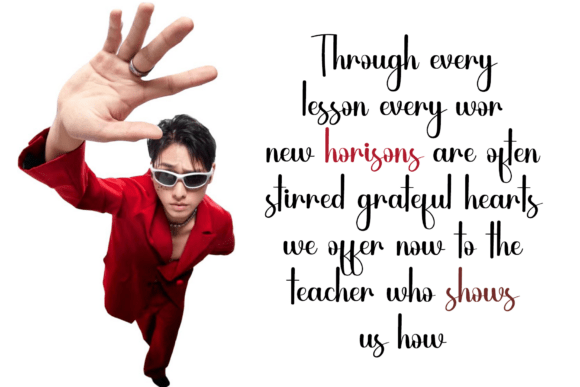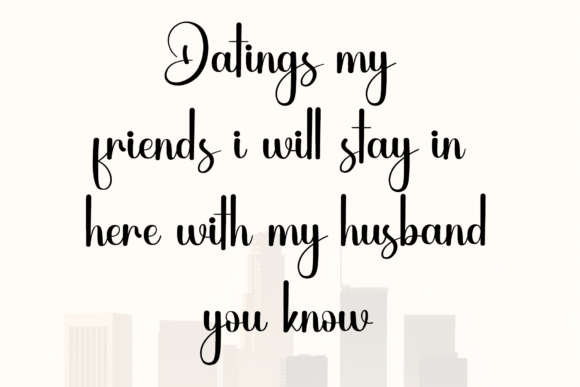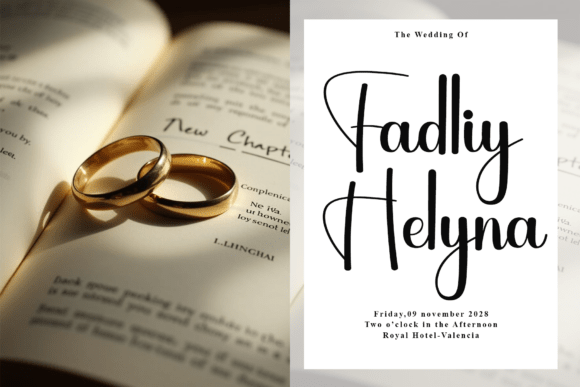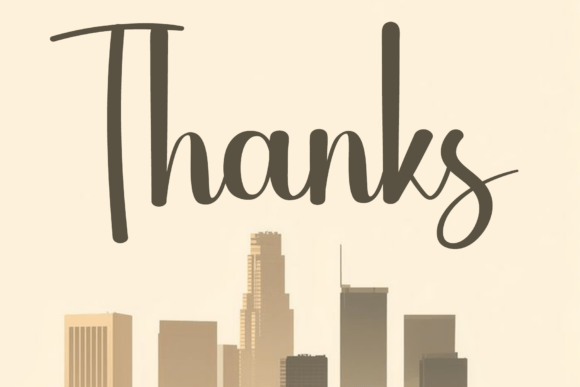
The Perfect Script for a Special Day
Have you ever stared at a blank canvas, waiting for inspiration to strike? For designers, moments like these can be both thrilling and daunting. The blank page can be a daunting sight, but sometimes all it takes is the right font to spark creativity. That’s exactly what happens when you discover the Happys Birthdays Font – a sophisticated script that combines the elegance of calligraphy with the warmth of handcrafted artistry.
This beautiful font is a go-to choice for designers who want to add a touch of sophistication to their projects. From artisanal food branding to upscale lifestyle marketing, Happys Birthdays Font is the perfect tool for making your designs stand out. Its unique, looping ascenders create a sense of customized, artisanal artistry that’s sure to captivate your audience.
Happys Birthdays Font Key Features
- Font Style: Handwritten Script Font
- Unique Characteristics: Includes 12 birthday-themed swashes and ornaments, making it perfect for creating personalized birthday cards and invitations
Happys Birthdays Font Review
First off, I’d like to say that Happys Birthdays Font is a unique and playful choice for any birthday-themed design project ✨. The font’s rounded edges and colorful feel instantly evoke a sense of celebration and joy. I appreciate how the font’s design allows for a lot of customization options, making it easy to match with various color schemes and design styles.
- Customizable color options: The font’s vibrant colors can be easily adjusted to fit any design aesthetic.
- Playful, celebratory feel: Happys Birthdays Font is perfect for adding a touch of whimsy to birthday-themed projects.
However, I do have some reservations about the font’s limitations ⚠️. For one, the font’s design may not be suitable for more formal or professional projects. Additionally, the font’s rounded edges can sometimes make it difficult to read, particularly in smaller text sizes.
- May not be suitable for formal projects: Happys Birthdays Font’s playful design may not be fitting for more serious or professional projects.
- Readability issues: The font’s rounded edges can make it difficult to read in smaller text sizes.
Overall, I think Happys Birthdays Font is a great choice for birthday-themed projects, but it may not be the best fit for every design project. With a little creativity and careful design planning, however, this font can add a lot of personality and whimsy to your work.
Tips for Getting the Most Out of Happys Birthdays Font
Use the font to create custom invitations, birthday cards, and party decorations.
Combine the font with other design elements to create a unique and eye-catching design.
Experiment with different font sizes, colors, and styles to find the perfect look for your design.
Happys Birthdays Font is perfect for:
Birthday invitations and cards
Party decorations and signs
Custom gift tags and labels
Special occasion graphics and designs